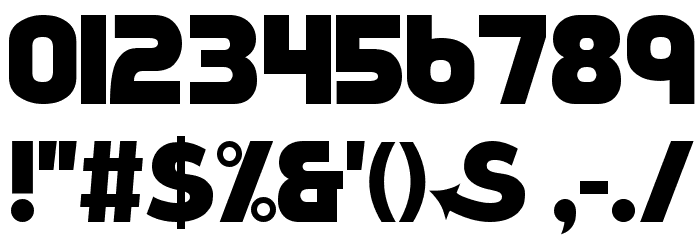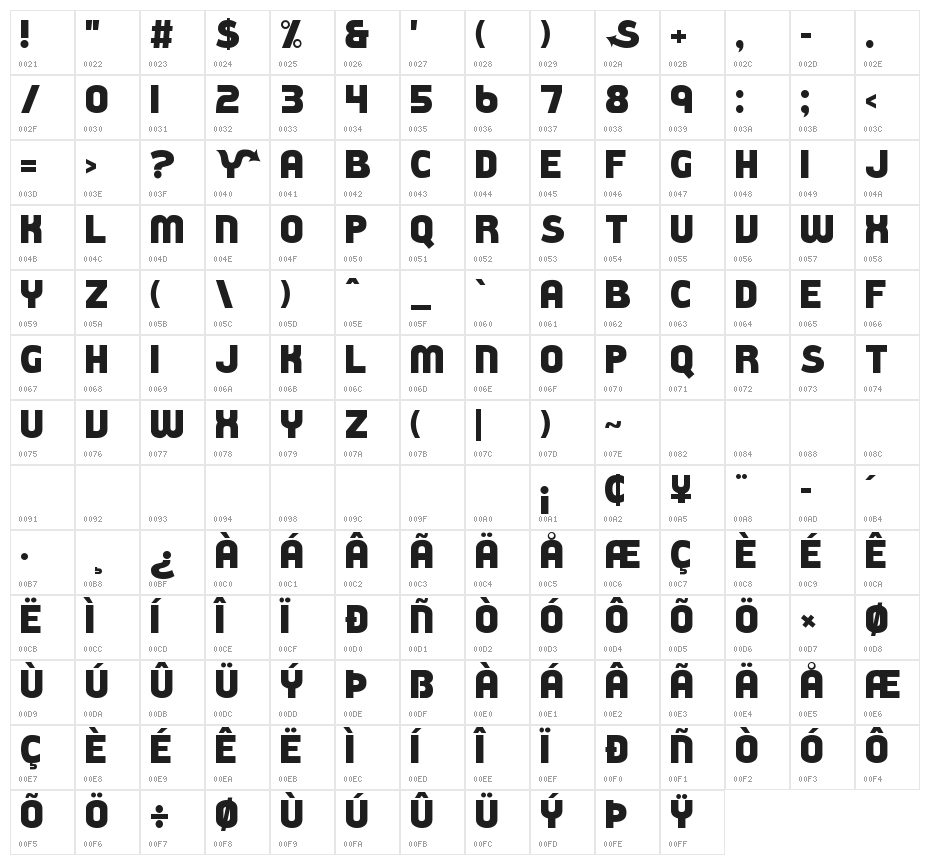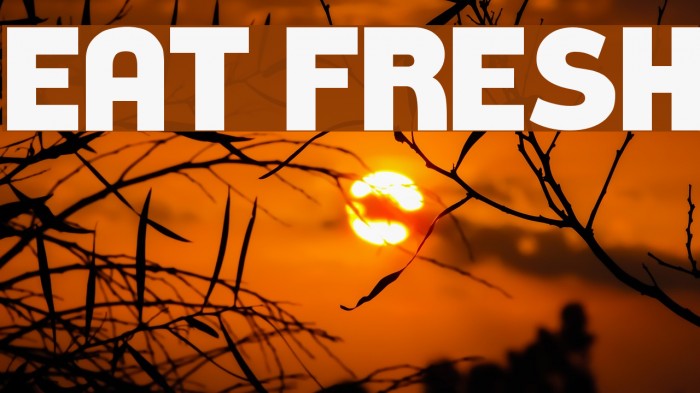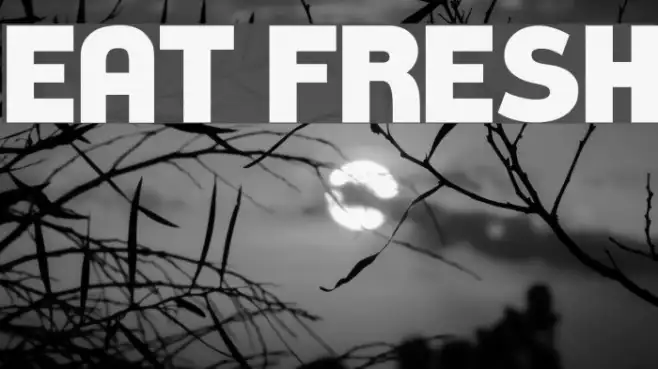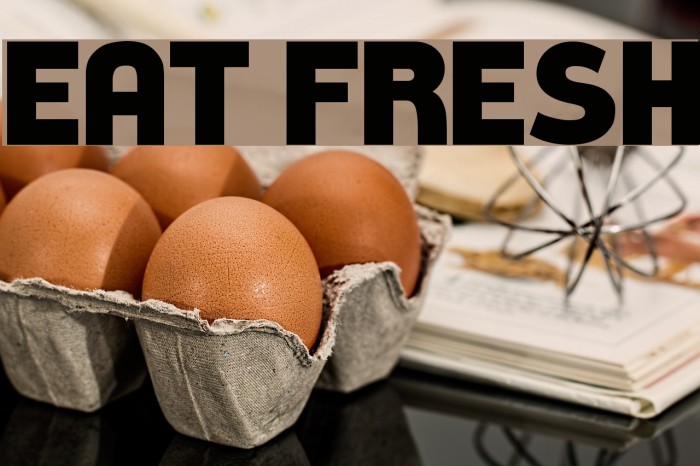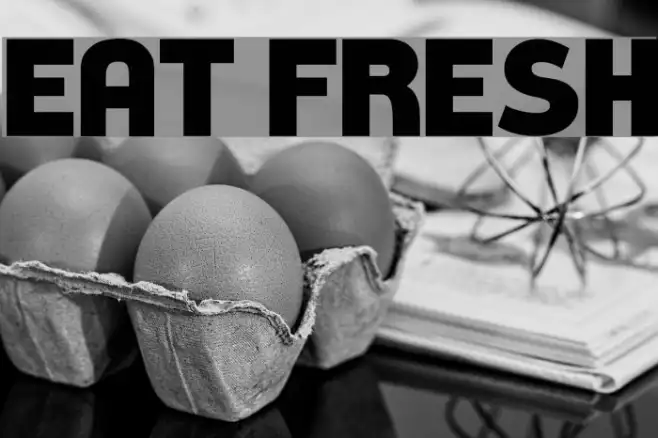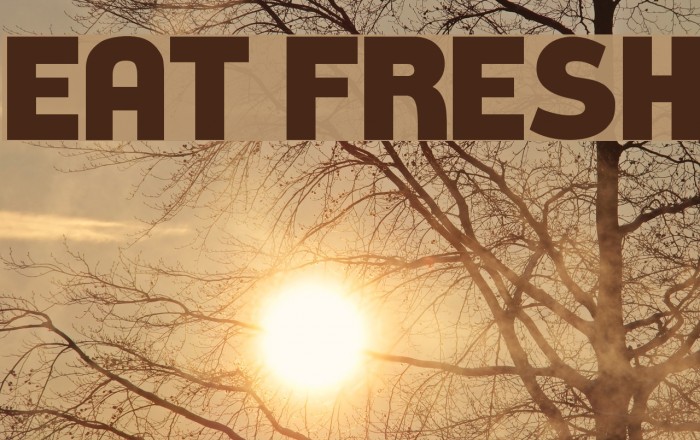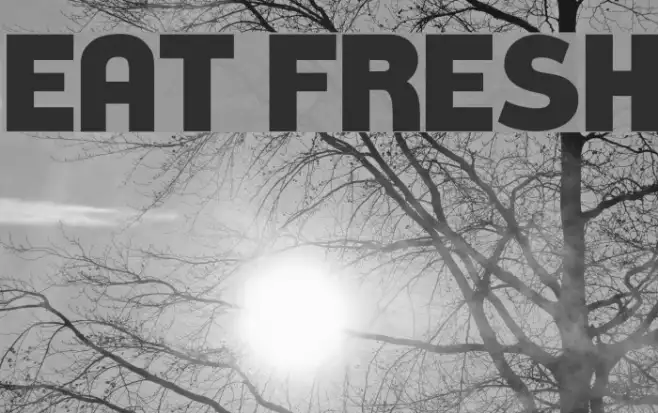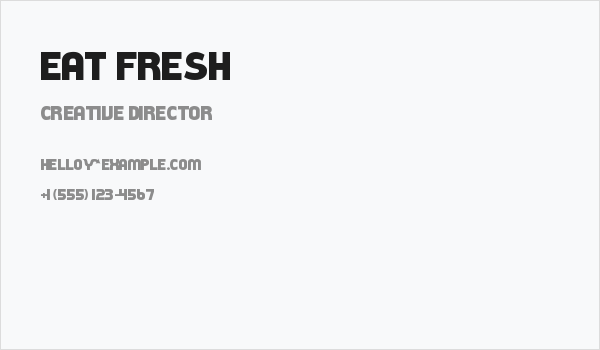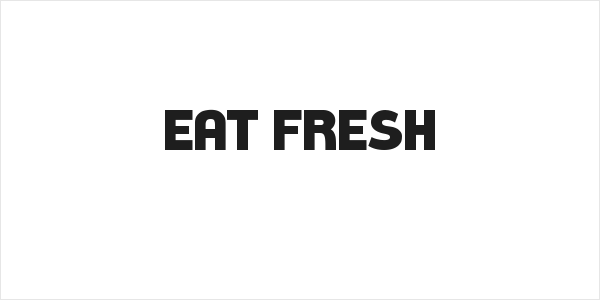
Eat Fresh Font
Eat Fresh Description
This font features bold, geometric letterforms with a strong presence. The characters are uniformly thick, creating a powerful and impactful look. The rounded edges soften the overall appearance, making it approachable while maintaining a sense of authority. The uppercase letters are particularly striking, with a consistent height and width that ensures readability. The numerals and special characters follow the same bold style, providing a cohesive look across all elements. This font is ideal for making a statement, whether in headlines or branding materials.
| Proposed Projects | Ideal for branding, advertising, posters, and headlines where a strong, impactful statement is needed. |